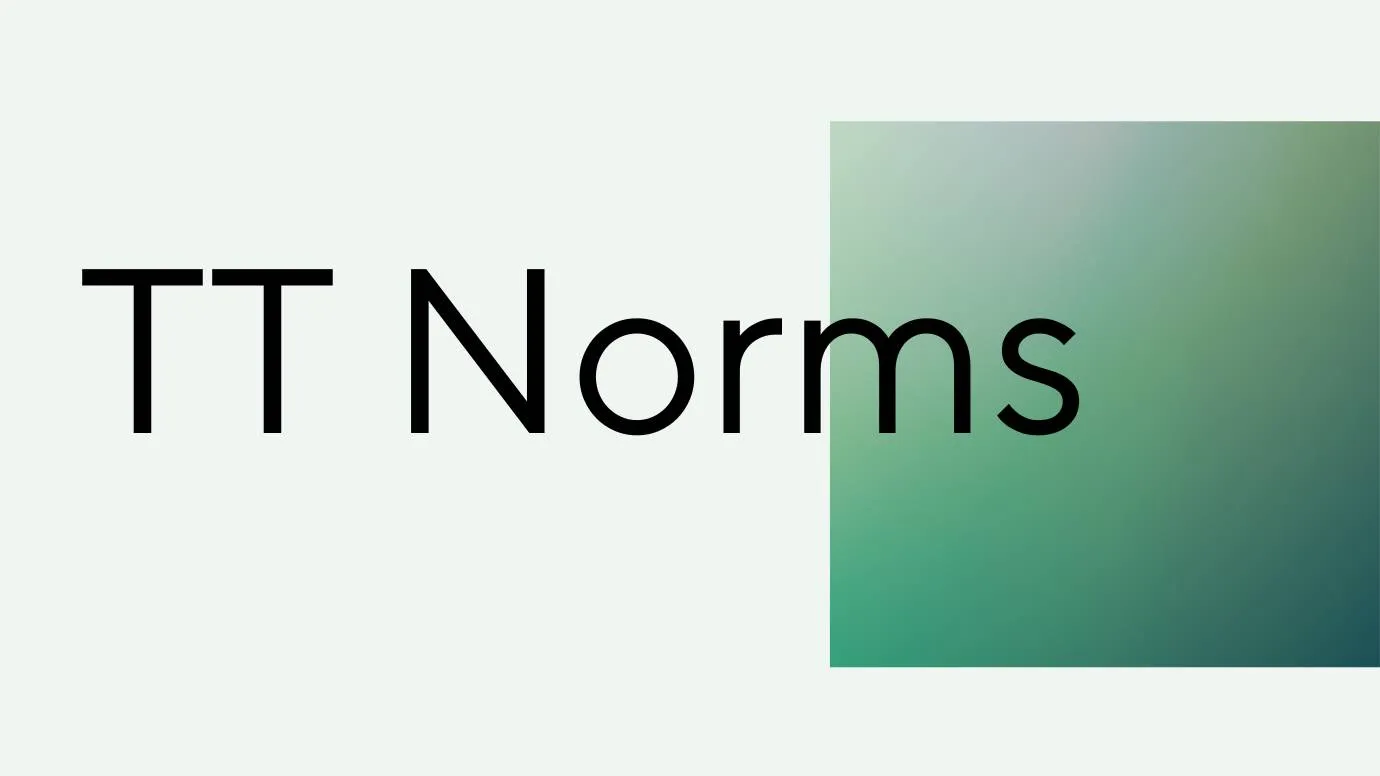
TT Norms is an ultra-modern and geometric sans serif typeface that comes in a total of 18 styles. It was designed and shared in the year 2017 by a remarkable type designer Mr. Ivan Gladkikh.
This typeface, characteristic font that is based on smooth proportions and straightforward look like Proxima Nova Font which is the best results of countless hours of meticulously perfect design.